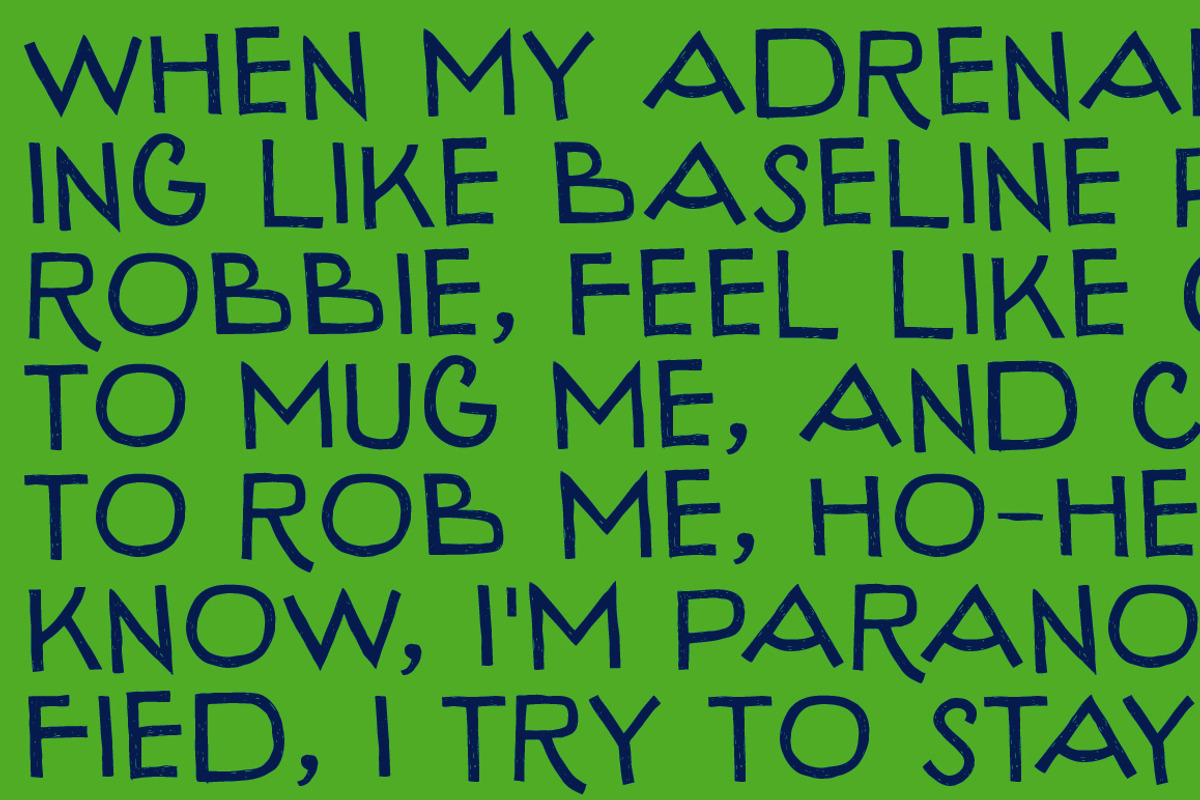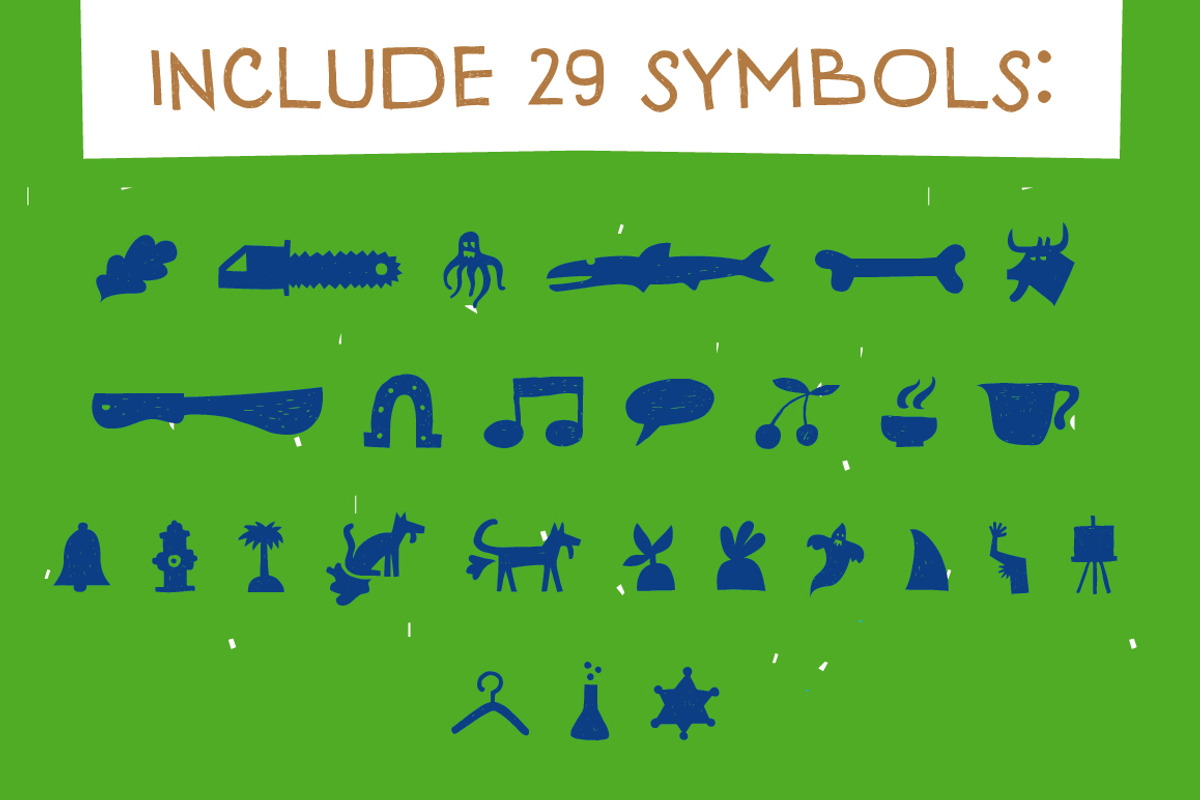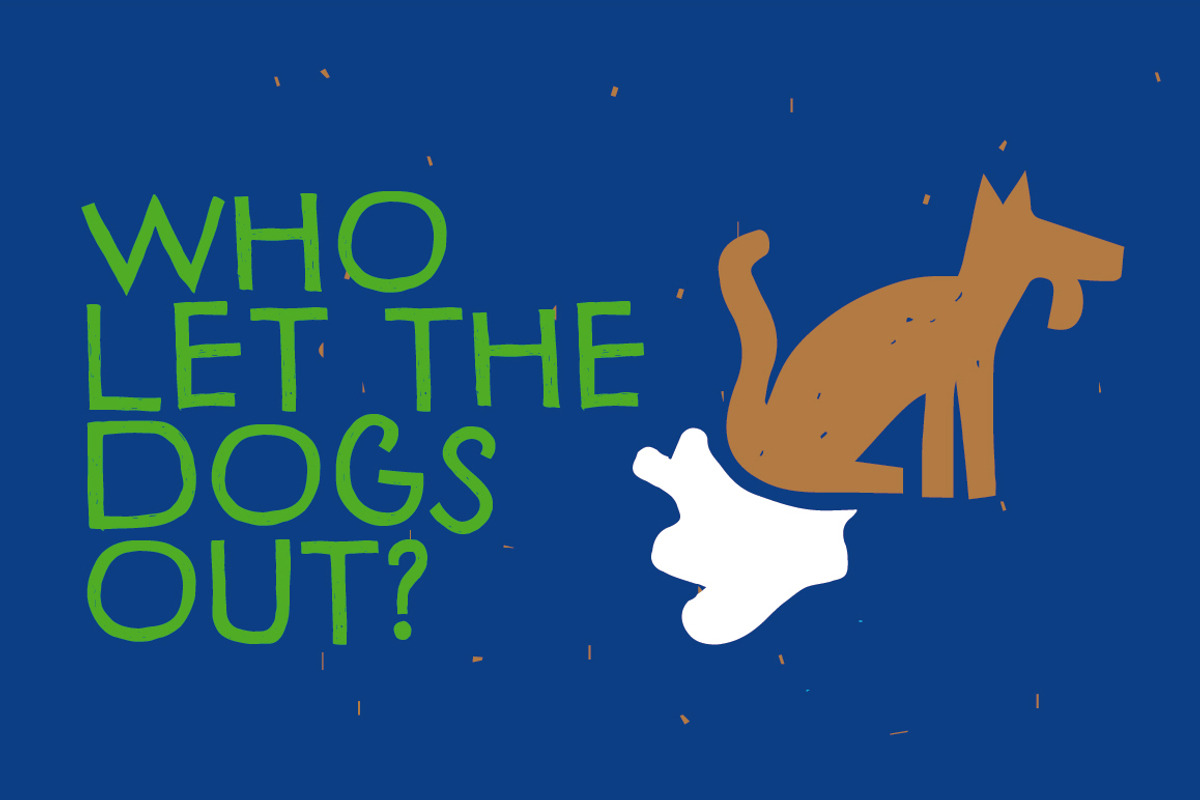
Pleyo Font Family
Pleyo Font Family by Tour de Force FF is a font selected for branding, posters, packaging, typography.
- Pleyo is the player for all situations - packages, labels, posters, titles, logos etc.
Why Pleyo Font Family is worth a look
Pleyo Font Family by Tour de Force FF fits naturally into Branding, posters, packaging, typography.